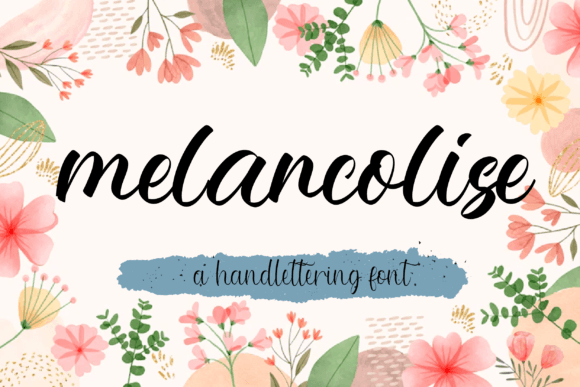
Unleash the Allure of Melancolise: A Font Symphony for Timeless Elegance
In the realm of fonts, Melancolise stands as a masterpiece, a symphony of elegance and charm that captivates hearts and ignites imaginations. Its delicate strokes, reminiscent of a skilled calligrapher's hand, evoke a sense of nostalgia and romance, inviting you on a journey through time.
Picture this: a wedding invitation adorned with Melancolise's graceful letters, hinting at the love story about to unfold. Or, envision a social media post adorned with Melancolise's timeless beauty, capturing attention and sparking conversations. Its versatility extends beyond the digital realm, as Melancolise lends its charm to wall displays, product packaging, labels, and photography, adding a touch of sophistication to any project.
With Melancolise, your creativity knows no bounds. Its innate elegance elevates designs, adding a touch of refinement that speaks volumes. It's the perfect font for those seeking to make a statement, to create designs that are both timeless and captivating.
Beyond its aesthetic appeal, Melancolise is a font of functionality. Its clean lines ensure readability, making it ideal for a wide range of applications, from logos and advertisements to product designs and stationery. Its adaptability shines through in its ability to complement various design styles, harmonizing seamlessly with both modern and traditional aesthetics.
So, embark on a creative odyssey with Melancolise, a font that transcends trends, embodying a spirit of timeless elegance. Let its enchanting characters weave their magic into your designs, leaving an indelible mark on hearts and minds alike.